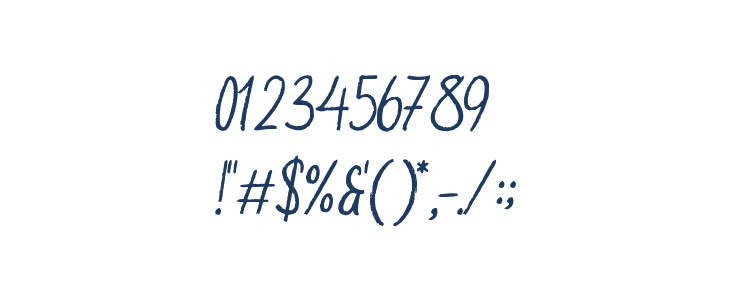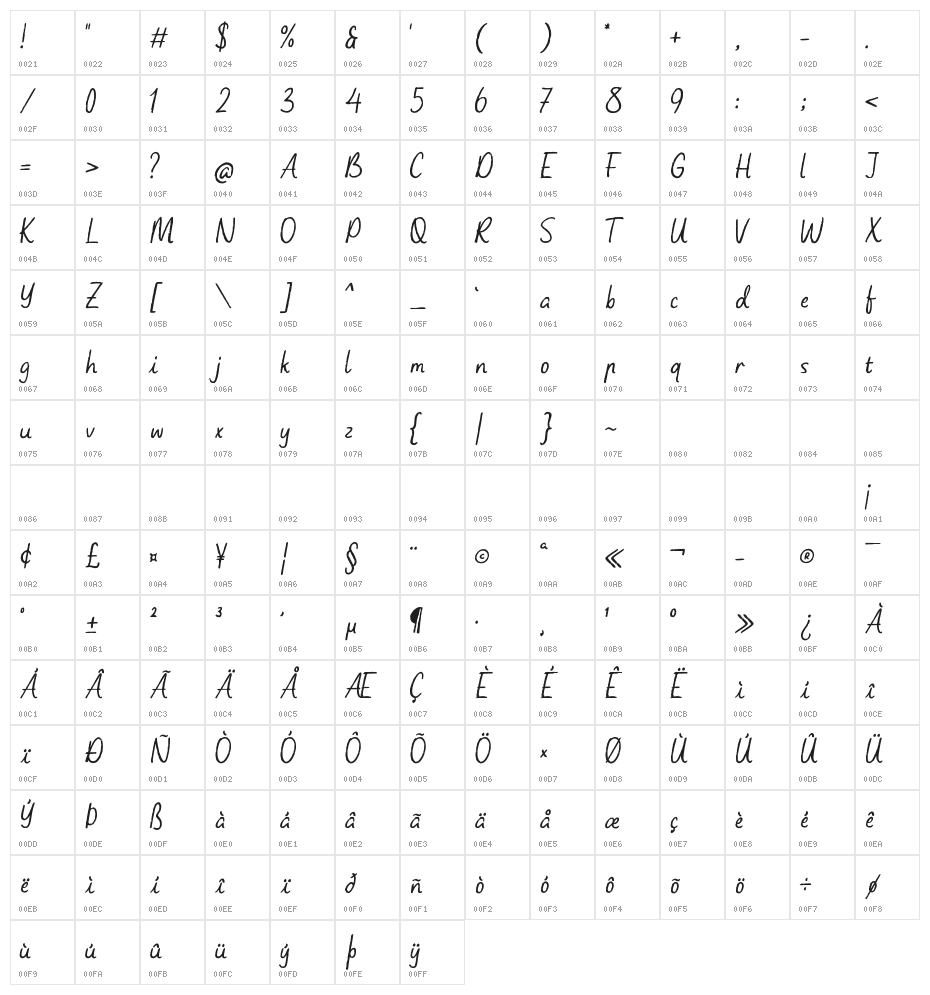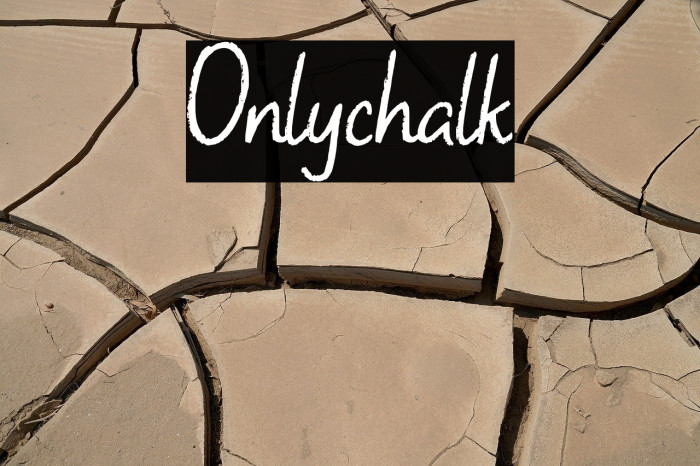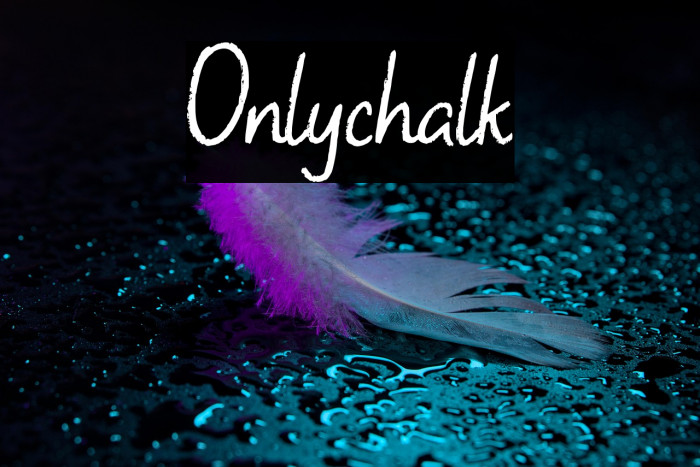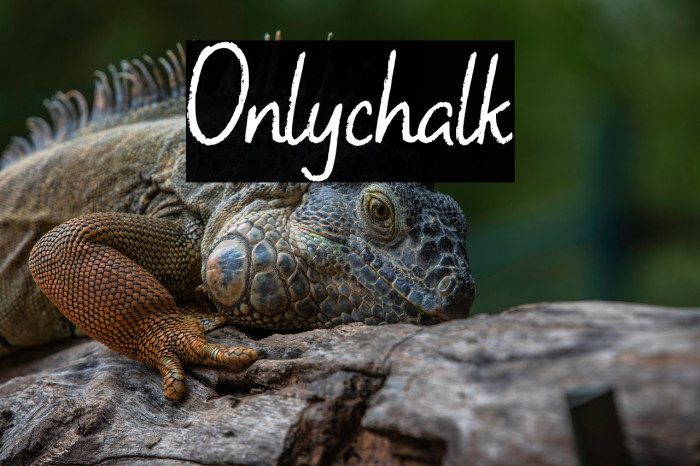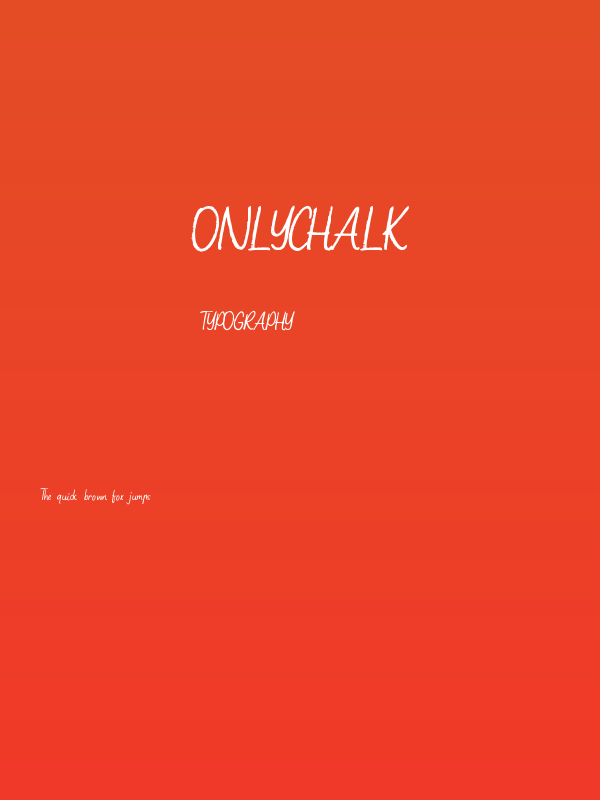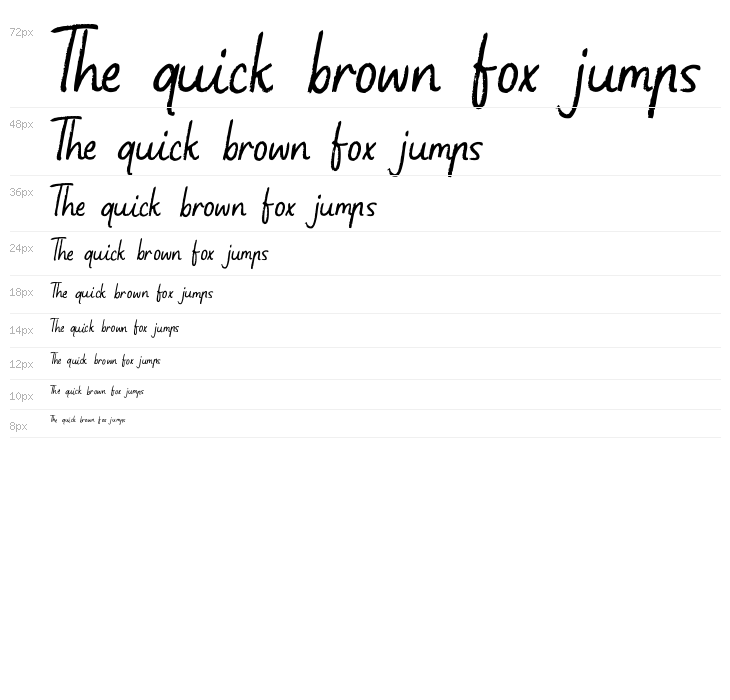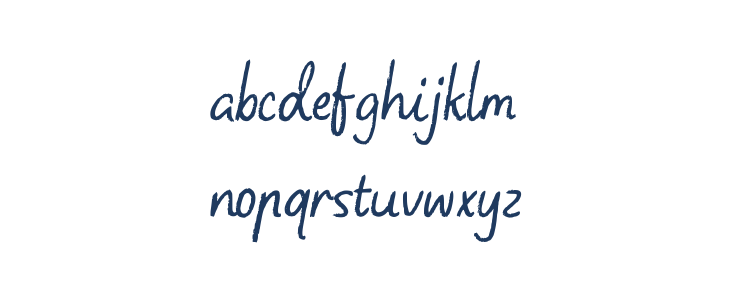
Onlychalk Font
Onlychalk Description
This font exudes a casual and playful vibe, reminiscent of handwriting with a chalk-like texture. The letters are slightly slanted, giving it an informal and dynamic appearance. The strokes are uneven, mimicking the natural flow of hand-drawn text, which adds to its charm and authenticity. The uppercase and lowercase letters are well-proportioned, maintaining readability while offering a unique style. The numbers and special characters follow the same aesthetic, ensuring consistency across all elements. This font is perfect for projects that require a personal touch, such as invitations, greeting cards, or educational materials.